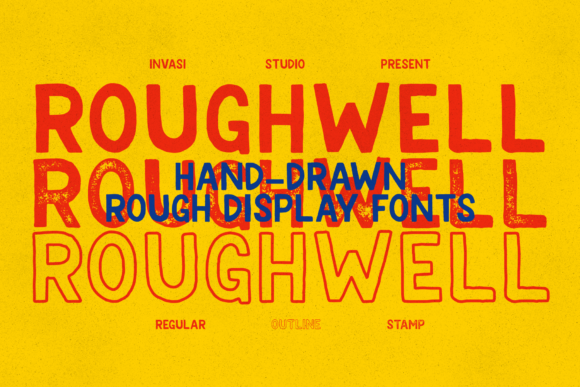
Introducing Roughwell Family Font, the Bold and Eye-Catching Sans Serif Designed to Make Your Projects Shine.
Step into the world of Roughwell Family Font, a captivating sans serif font family that exudes a retro stamp character and a touch of rugged charm. This font is meticulously crafted to bring a unique touch to your creative projects, adding a layer of distinction that will set your work apart.
Embrace the Imperfect Beauty of Roughwell Family Font
Roughwell Family Font embraces the beauty of imperfection, with its rough hand-drawn style that adds a touch of authenticity and individuality to your designs. The carefully crafted imperfections ensure that each letter carries a unique charm, reminiscent of the nostalgia of vintage stamps. Yet, amidst its ruggedness, Roughwell Family Font maintains remarkable legibility, ensuring your message remains clear and impactful.
Unleash Your Creativity with Roughwell Family Font
With its versatility and wide range of applications, Roughwell Family Font is the perfect choice for a wide spectrum of creative projects. Whether you're designing logos, branding materials, posters, social media graphics, or any other visual content, Roughwell Family Font will effortlessly elevate your designs and capture the attention of your audience.
Experience the Power of Roughwell Family Font:
- **Create Striking Logos and Branding:** Roughwell Family Font's distinct character lends itself perfectly to creating memorable logos and branding elements that exude a unique and lasting impression.
- **Design Eye-Catching Posters and Flyers:** Let your posters and flyers stand out from the crowd with Roughwell Family Font. Its bold and captivating style will ensure your message is seen and remembered.
- **Engage Your Audience on Social Media:** Captivate your social media followers with visually stunning graphics and posts designed using Roughwell Family Font. Its distinct style will make your content pop and leave a lasting impact.
- **Add Personality to Your Websites and Digital Designs:** Bring a touch of individuality to your website, digital brochures, and other digital designs with Roughwell Family Font. Its unique aesthetic will set your online presence apart and create a memorable experience for your visitors.